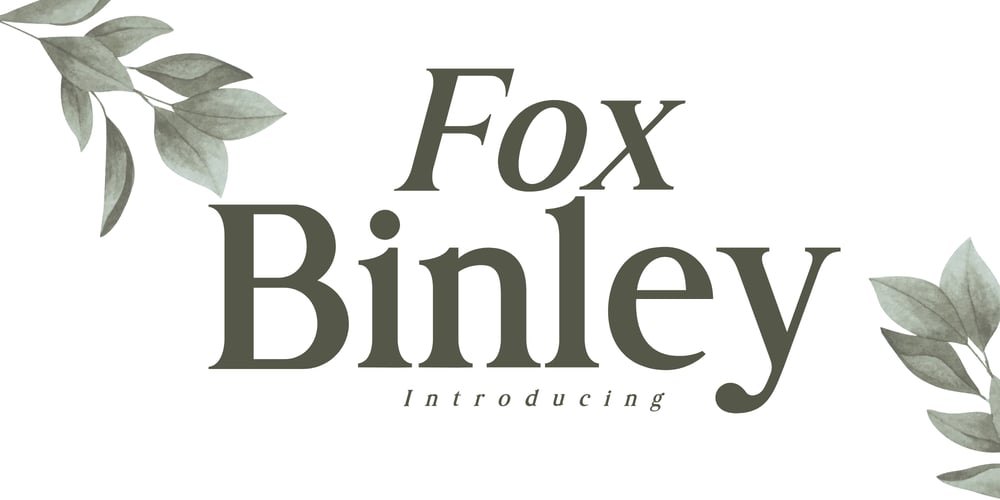
Fox Binley
Fox Binley font
Fox Binley Font Family was designed by Rattana Rattanawan and published by Fox7. Fox Binley contains 2 styles and family package options. Fox Binley is a bold and classic serif font with a strong, elegant appearance. Its traditional letterforms and clean lines make it perfect for projects that need a sense of sophistication and authority, such as branding, headlines, and logos. Fox Binley’s timeless style brings a professional, polished look to any design, making it ideal for both modern and classic themes. This font is well-suited for creating impactful text that stands out while maintaining a refined, stylish feel.